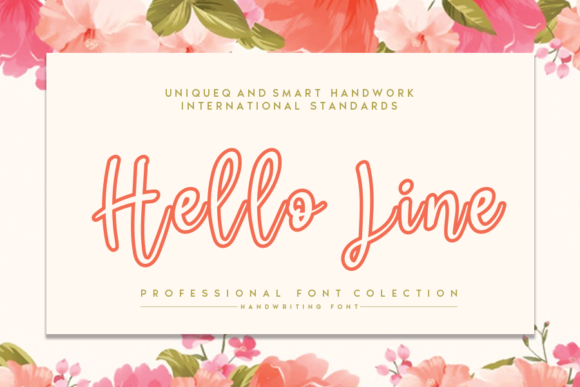
Hello Line Font: A Marketer’s Secret for Eye-Catching Campaigns
It was 3 PM on a Thursday, and I had two hours before my client's social media launch. The brand identity was warm, inviting, and elegant—think soft pastels, floral motifs, and a touch of whimsy. But the font in their logo felt off. It was too rigid, too corporate for what they wanted to convey. That’s when I stumbled across Hello Line, a flowing display font that instantly clicked with the tone we were trying to hit. Within minutes, it transformed our visuals from generic to unforgettable.
Hello Line for Wedding Invitations and Elegant Branding
Hello Line isn’t just another pretty font—it’s a storyteller. Its flowing curves and organic rhythm make it perfect for wedding invitations, where elegance and warmth are key. But what really stood out to me was how easily it translated into other branding elements. For one campaign, I used Hello Line as the headline for a suite of digital invites and then carried the same style through email banners and Instagram teaser posts. The result? A cohesive look that resonated deeply with their target audience and made everything feel more personal.
The visual personality of Hello Line is soft yet bold, which might sound contradictory but works beautifully in motion. It doesn’t demand attention like a heavy slab serif, nor does it get lost like a delicate script. Instead, it guides the eye gently, making even short headlines feel full of intention. When paired with a minimalist layout and a clean sans serif for body copy, it elevates the entire message without overwhelming it.
Hello Line in Social Media Graphics and YouTube Thumbnails
When I started using Hello Line in my workflow for a seasonal sale campaign, I immediately noticed how much better the thumbnails performed. On YouTube, where users scroll fast and skim harder than ever, the right font can be the difference between someone pausing or passing. With its open apertures and clear letterforms, Hello Line cuts through the noise without sacrificing charm.
- Used Hello Line for a product teaser video title: “Spring Collection Is Here” became the focal point of every preview frame.
- Built a week-long Instagram content series around it—posters, quote cards, and carousel ads all featured the same typeface for brand recognition.
- Tested it against other display fonts in Pinterest ad templates; Hello Line’s fluidity helped the pins stand out in a sea of text-heavy content.
I always check how a font looks at small sizes and on mobile. Hello Line holds up surprisingly well—its contrast and stroke direction help maintain legibility even in tight spaces. This means you can confidently use it in captions, sidebars, and callouts without worrying about it getting muddled in a fast-scrolling feed.
Hello Line for Web Design and Digital Ads
Recently, I worked on an online shop campaign for a boutique selling handmade jewelry. The site needed a fresh look, something that felt handcrafted but still professional. Hello Line became the hero of the design assets—used for category headers, promo banners, and even in subtle ways like button labels. It gave the site a sense of movement and creativity, perfectly matching the artisanal vibe of the products.
What makes Hello Line work so well in web design is its balance between artistry and function. Display fonts often struggle with usability, especially in digital environments. But Hello Line has enough structure to keep things readable while maintaining the expressive flair of a creative font. I recommend using it for decorative titles and short headlines rather than long paragraphs, though. Save the supporting typography for a clean sans serif to ensure your message stays sharp and scannable.
Design Tip: Use Hello Line with Dark Backgrounds for Maximum Impact
One thing I learned quickly is that Hello Line shines brightest on dark backgrounds. I tested it in several variations: black, navy, and even deep emerald tones. Each time, the font’s light strokes created a beautiful contrast, drawing the viewer’s eye directly to the text. For a webinar promotion, I layered it over a moody gradient background and added a subtle drop shadow to enhance depth. The final design felt both luxurious and approachable—an essential combo for high-converting creatives.
Font Pairing Ideas for Hello Line
Picking the right pairings is crucial when working with a display font like Hello Line. After experimenting with different combinations, I found these pairings particularly effective:
- Clean Sans Serif (like Montserrat or Lato): For body copy and subheadings, keeping the rest of the design minimalistic.
- Modern Serif (such as Playfair Display or Merriweather): Adds sophistication to longer texts or taglines.
- Handwritten Script (like Pacifico or Alex Brush): Works well in secondary callouts or signature-style accents.
Remember, the goal is to create hierarchy and harmony. Hello Line should anchor the visual, while the supporting font ensures readability and clarity. Too many moving parts can confuse the audience—stick to two typefaces max per piece.
Next time you’re stuck choosing a font for your campaign, remember Hello Line. It’s not just a font—it’s a tool that helps your message shine, wherever it lands.